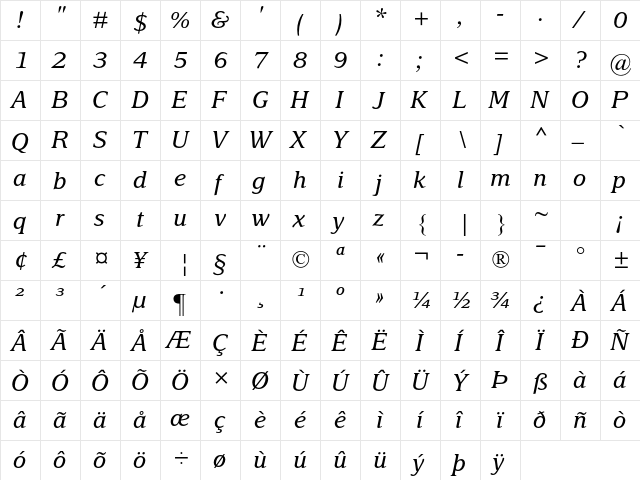
Delima MT Std Italic
Design Context for Delima MT Std Typeface
Delima MT Std is a composed and adaptable typeface that performs quietly and consistently across a wide range of design contexts. The slanted form adds forward momentum and visual energy.
Pro Tip: Try Delima MT Std for annotation and caption copy alongside an upright companion — the contrast in angle creates a dynamic but ordered typographic system.